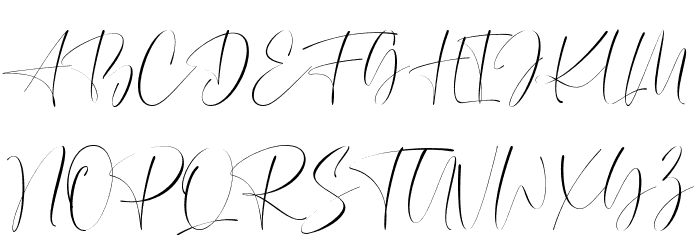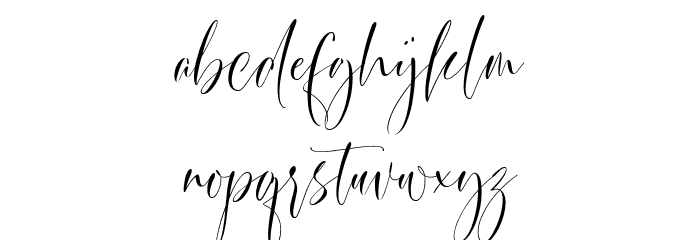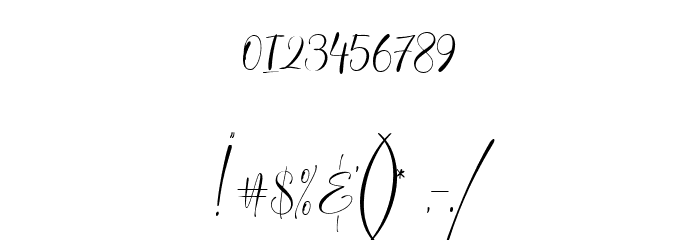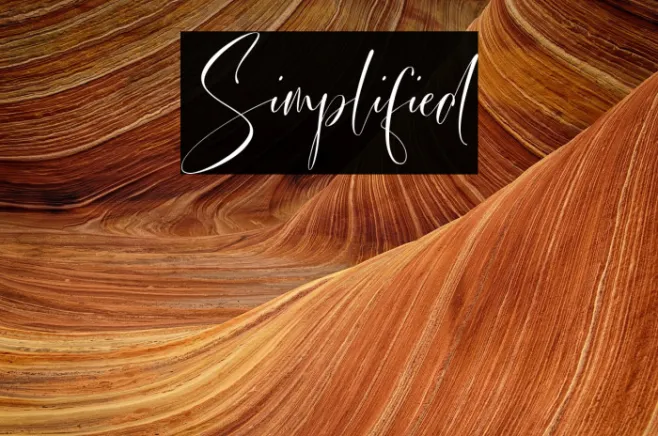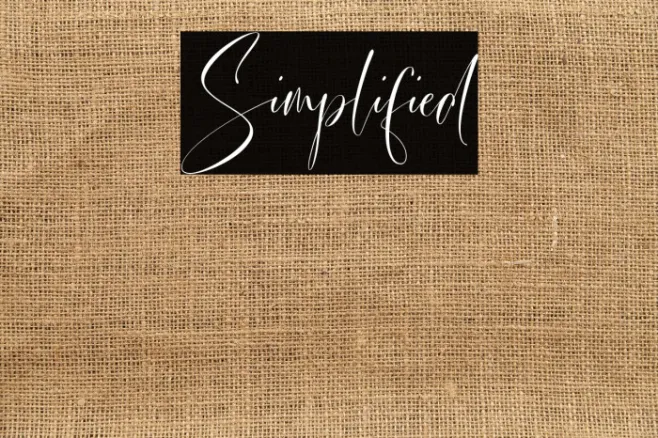
Simplified Font
This elegant script font exudes a sense of sophistication and fluidity, characterized by its flowing, cursive strokes and delicate, thin lines. The letters are intricately designed with a high level of detail, showcasing a graceful and artistic flair. The uppercase letters are particularly ornate, with sweeping curves and loops that add a touch of drama and elegance. The lowercase letters maintain a consistent style, with smooth connections and a harmonious flow. The numerals and special characters are equally well-crafted, maintaining the overall aesthetic of the font. This font is perfect for projects that require a touch of elegance and refinement, such as wedding invitations, luxury branding, and high-end product packaging.
An elegant and sophisticated script font with flowing, cursive strokes.
- Font: Simplified
- Proposed Projects: Ideal for wedding invitations, luxury branding, and high-end product packaging.
- Category: Script
- Weight: Light
- Overall Style: Elegant
- Use Case: Logos, Invitations, Branding